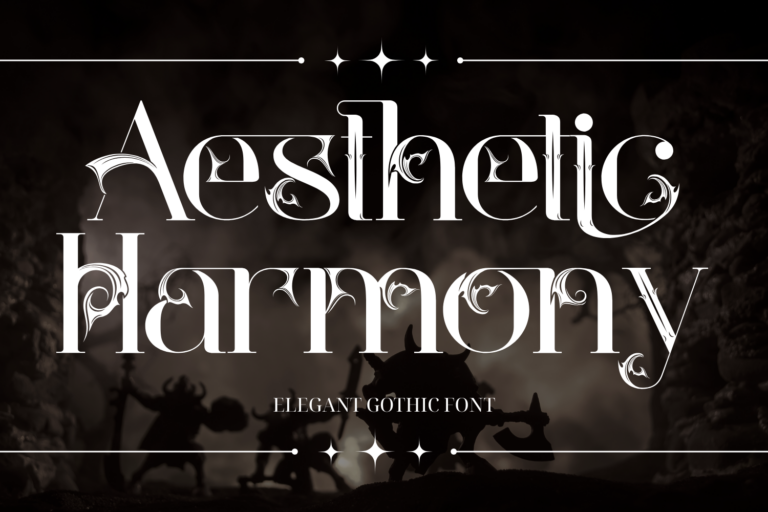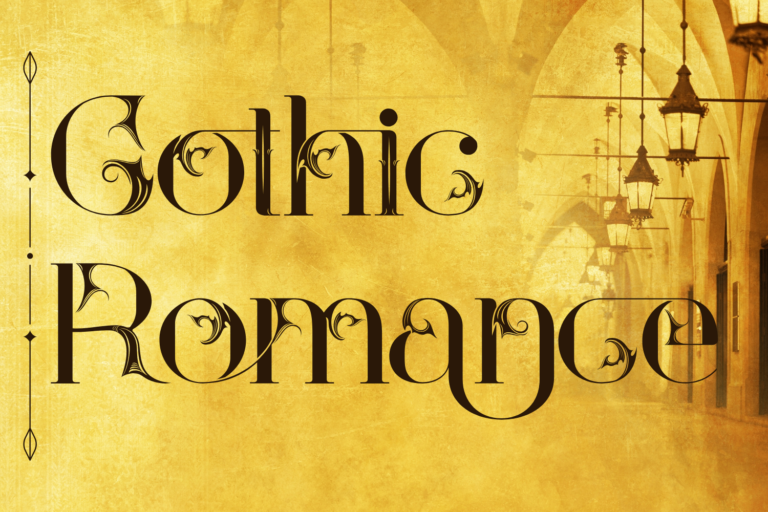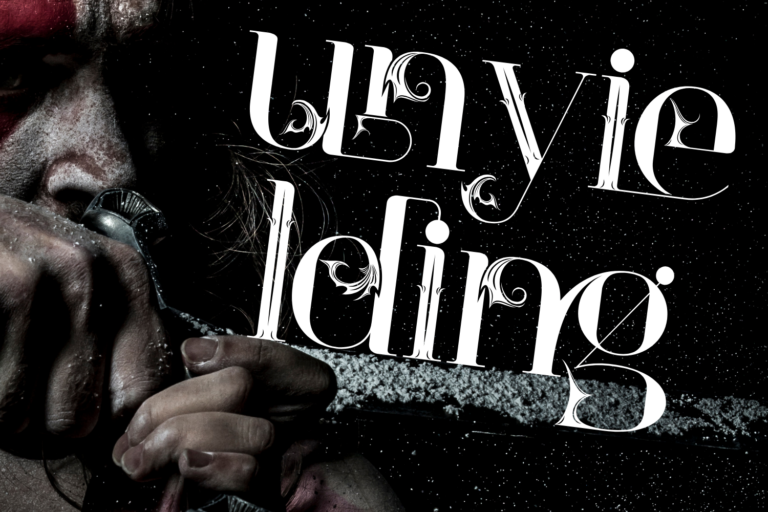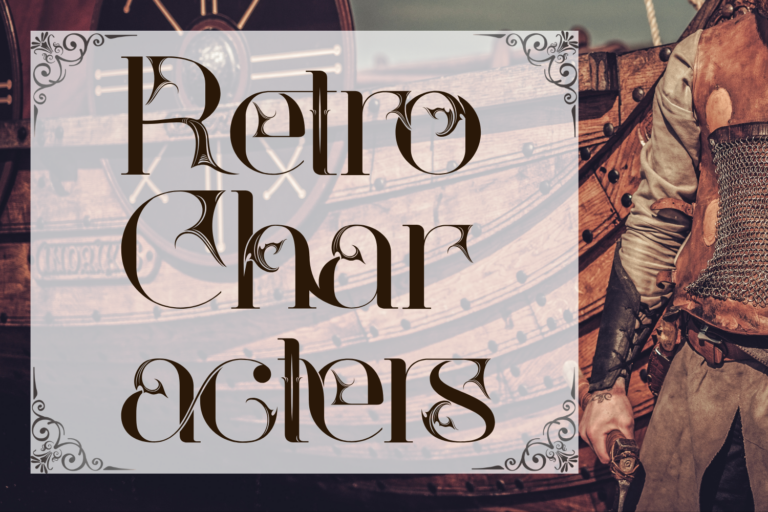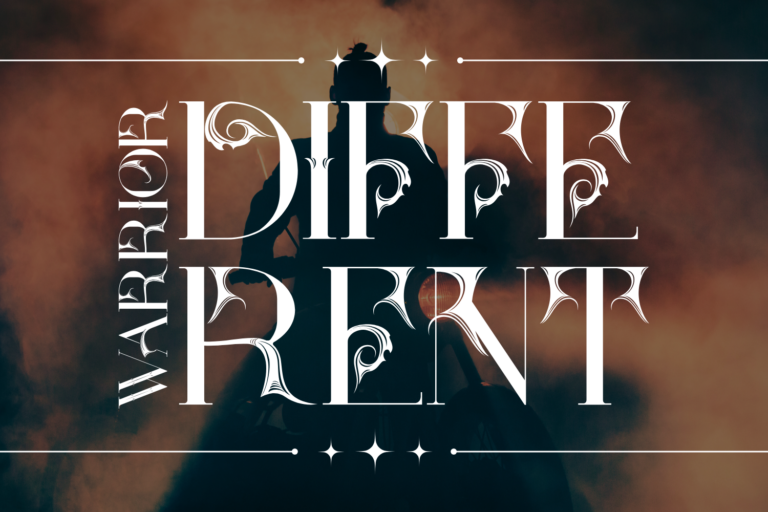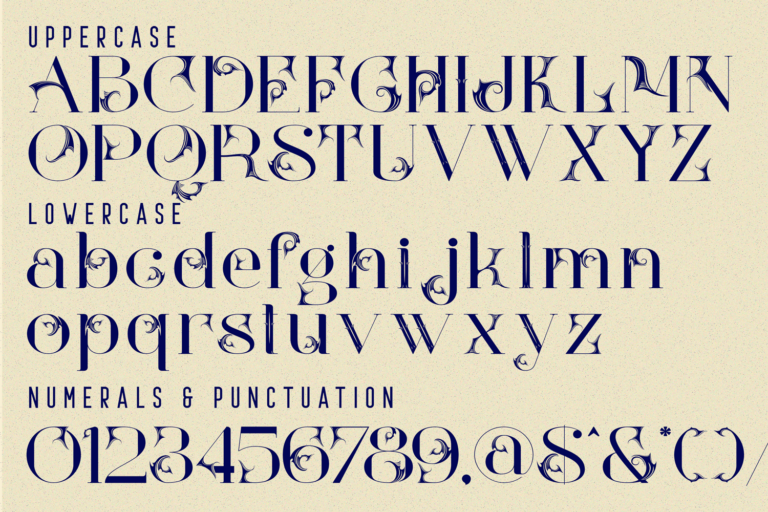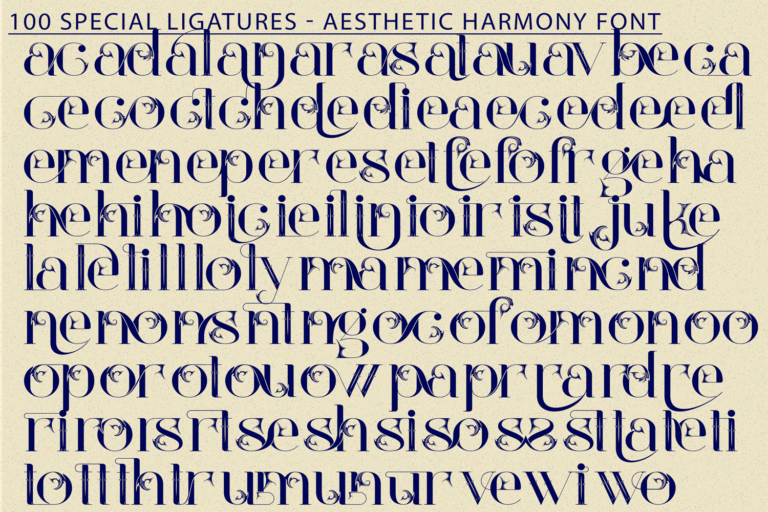
Aesthetic Harmony – Gothic Font is an elegant serif display font that harmonizes ornamental beauty with bold sophistication. Each character is meticulously sculpted with delicate floral swashes and pointed terminals, evoking the feeling of antique luxury, dramatic poise, and romantic gothic flair.
This font is perfect for editorial design, fashion branding, luxury packaging, wedding invitations, and artistic posters. Its high contrast strokes and organic decorative elements make it an unforgettable choice for designs that crave visual drama with refined control.
Font Features:
• Uppercase & Lowercase Letters
• ~100 Refined Ligatures
• Multilingual Support with Accented Characters
• Stylish alternates and ornamental glyphs for added versatility
ac ad al an ar as at au av be ca ce ch co ct de di ea ec ed ee el em en ep er es et fe fo fr ge ha he hi ho ie ic il in io ir is it ju ke la le li ll lo ly ma me mi nc nd ne ng no nt ns oc of om on oo op or ot ou ow pa pr ra rd re ri ro rs rt se sh si so ss st ta te th ti to tr tt um un ur ve wi wo
Aesthetic Harmony – Gothic Font